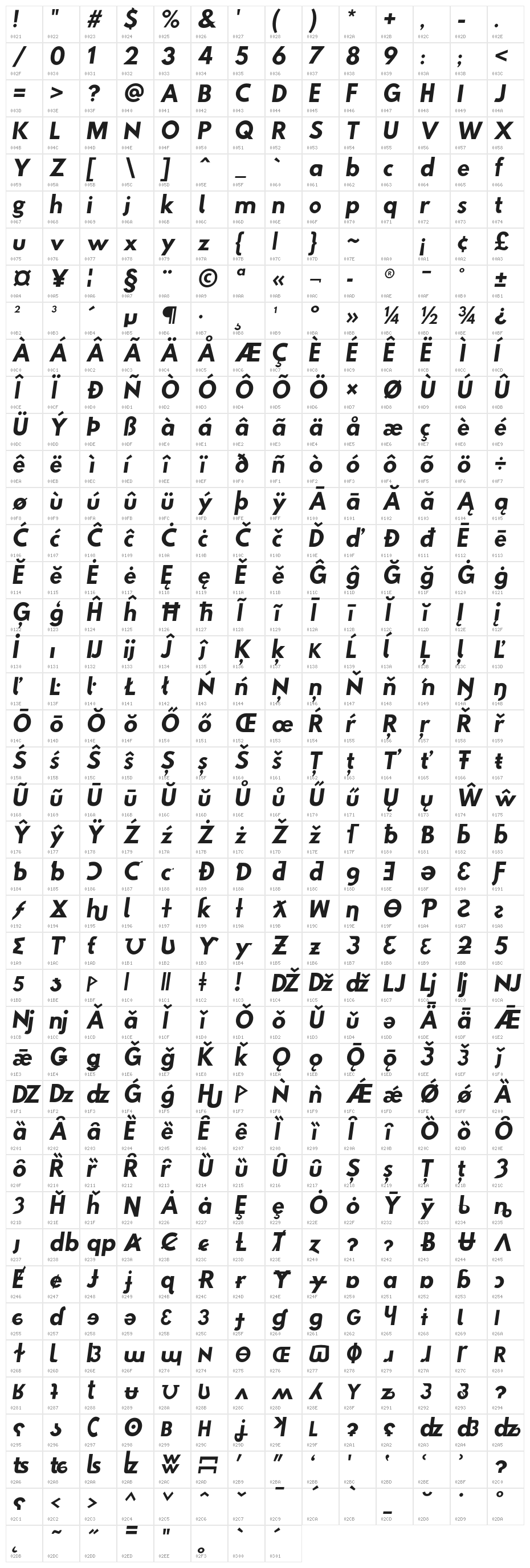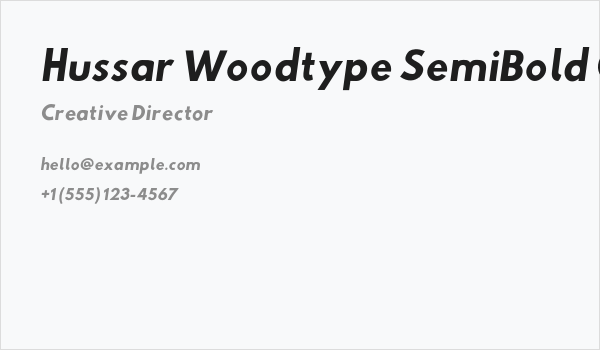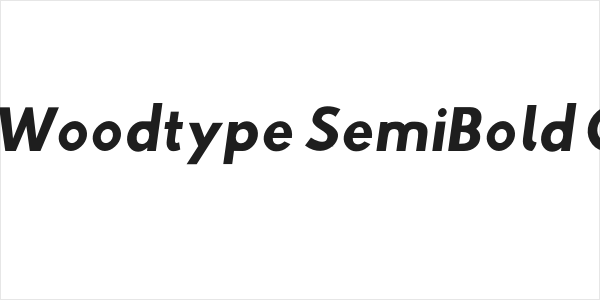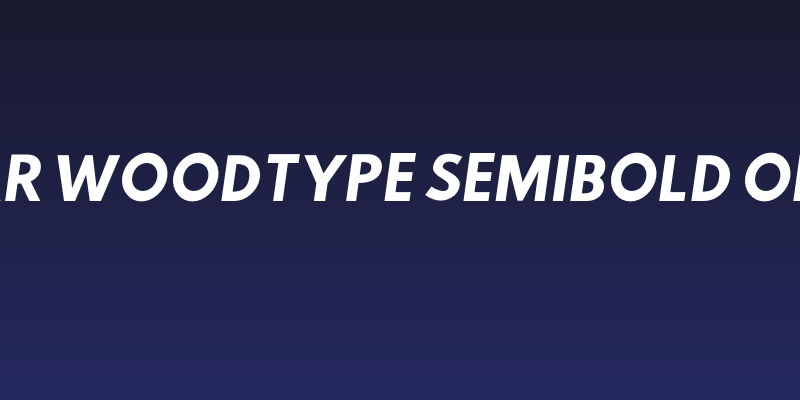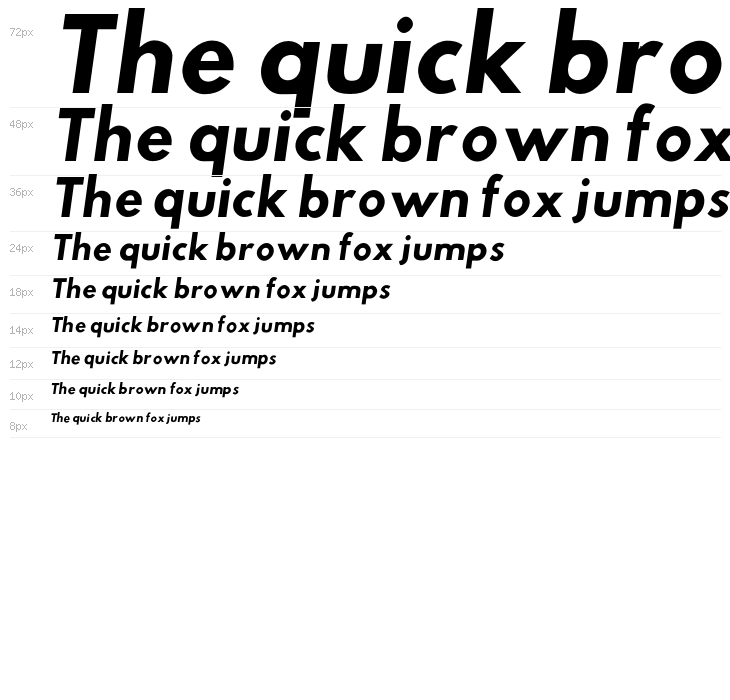
Hussar Woodtype SemiBold Oblique Font
Hussar Woodtype SemiBold Oblique Description
This font exhibits a bold and dynamic style with a semi-bold weight and oblique orientation, giving it a strong and assertive presence. The characters are well-defined with a slight slant, adding a sense of motion and energy. The uppercase letters are robust and commanding, while the lowercase letters maintain a consistent flow with rounded edges. The numerals are clear and easily distinguishable, making them suitable for various applications. Special characters are included, enhancing its versatility. The overall design is modern and impactful, suitable for making bold statements.
| Proposed Projects | Ideal for headlines, posters, branding, and advertising where a strong visual impact is desired. |